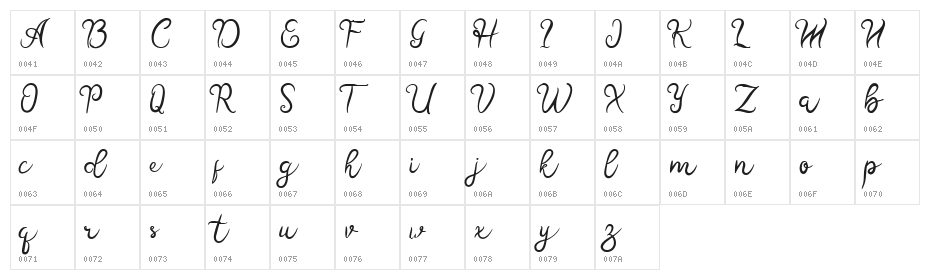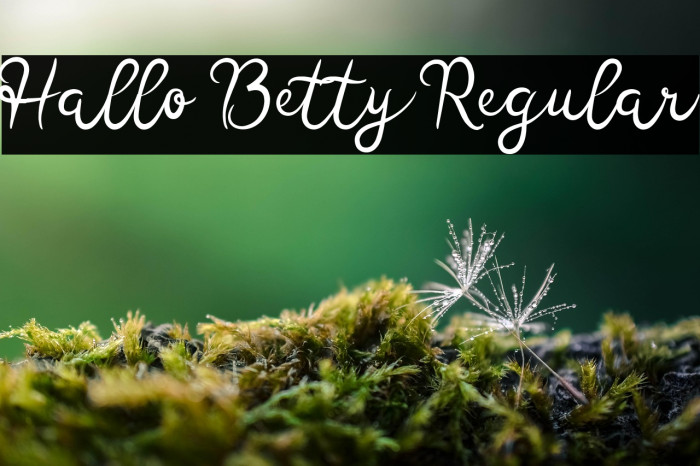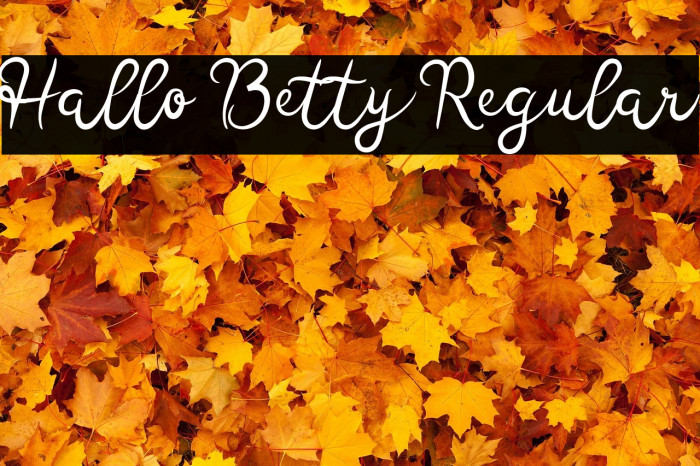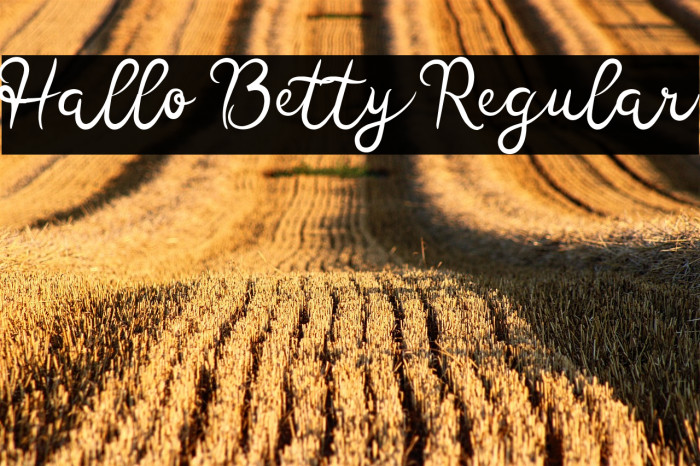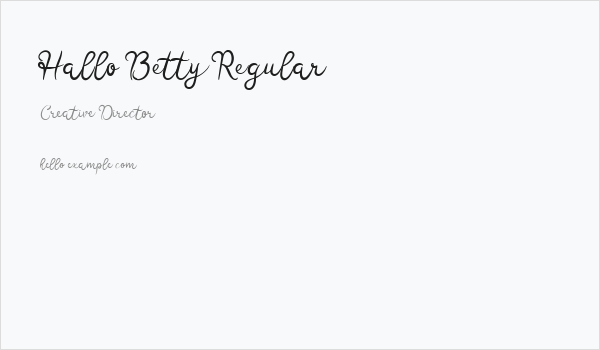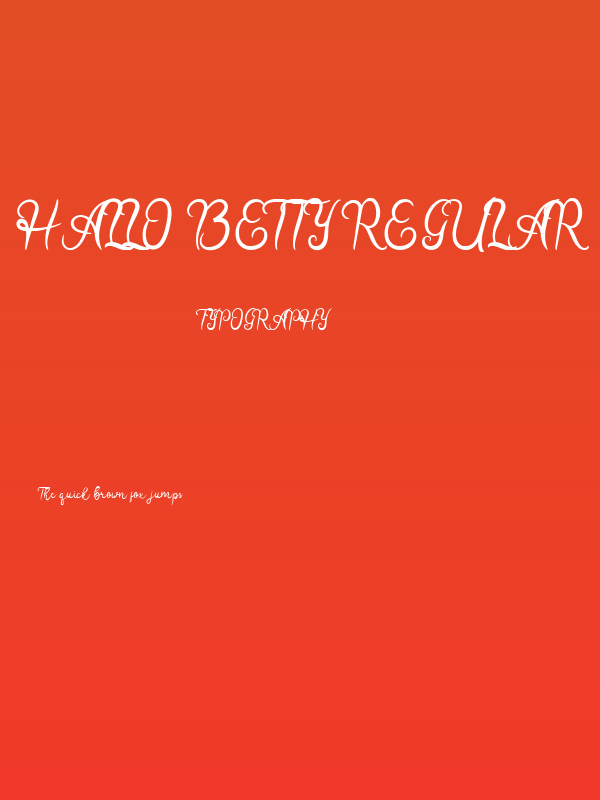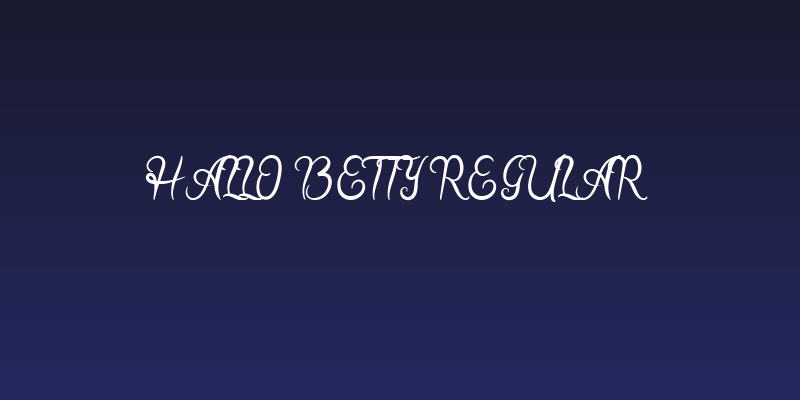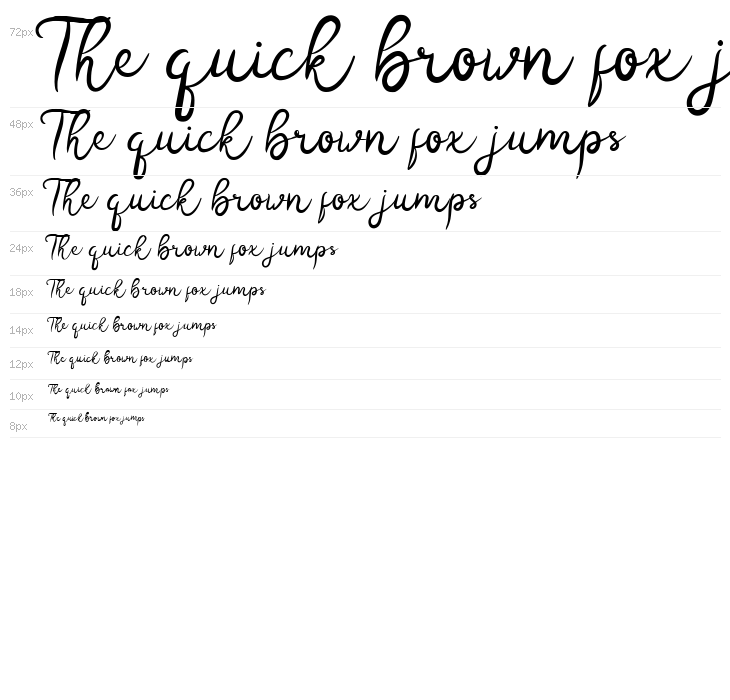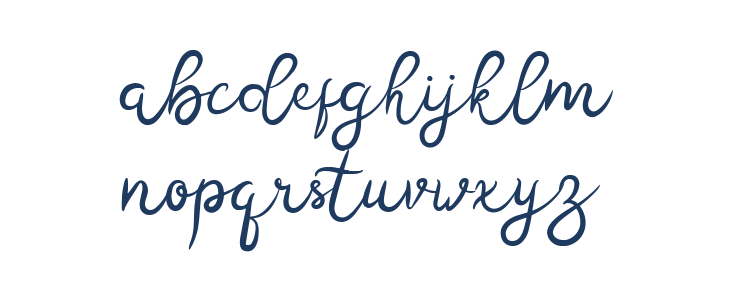
Hallo Betty Regular Font
Hallo Betty Regular Description
This font features a playful and elegant script style with a flowing, cursive design. The characters are interconnected, creating a seamless and fluid appearance. The strokes are smooth and rounded, giving it a friendly and approachable feel. The uppercase letters are slightly more elaborate, with decorative swirls and loops, while the lowercase letters maintain a consistent and harmonious flow. This font exudes a sense of charm and sophistication, making it suitable for a variety of creative projects.